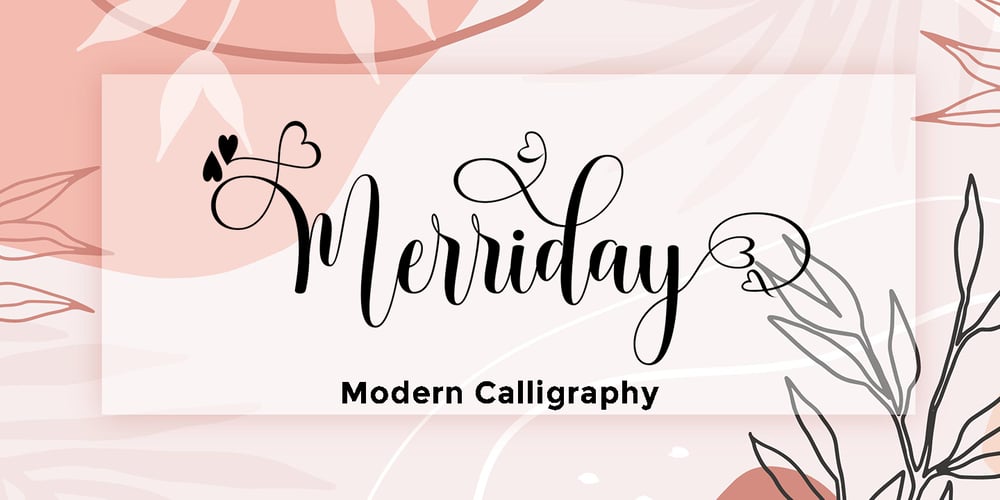
Merriday
Merriday font
Merriday Font Family was designed by Romi Rahmadi and published by Romie Creative. Merriday contains 1 styles and family package options. Merriday Script is a modern calligraphy design. This font is casual and beautiful with swashes. Can be used for various purposes such as logos, product packaging, wedding invitations, branding, headlines, signage, labels, signatures, book covers, posters, quotes, and more.Merriday script includes changes to the OpenType language style, ligatures and international support for most Western languages. To activate the OpenType Stylistic alternative, you need a program that supports OpenType features such as Adobe Illustrator CS, Adobe Indesign & CorelDraw X6-X7, Microsoft Word 2010 or newer versions. How to access all alternative characters using Adobe Illustrator:https://www.youtube.com/watch?v=XzwjMkbB-wQMerriday Script is coded with Unicode PUA, which allows full access to all additional characters without having to design special software. Mac users can use Letter Book, and Windows users can use Character Maps to view and copy any of the additional characters to be included in your favorite text editor / application. How to access all alternative characters, using Windows Character Map with Photoshop:https://www.youtube.com/watch?v=Go9vacoYmBwIf you need help or have questions, let me know. I am happy to help.